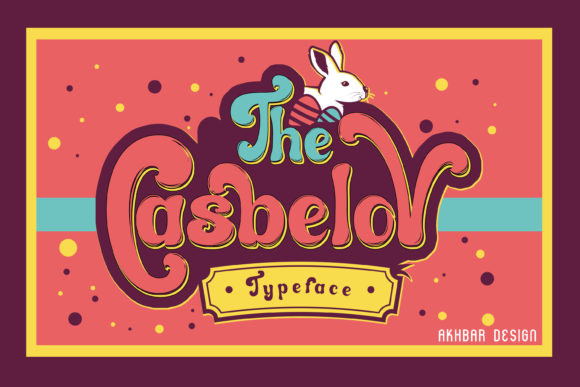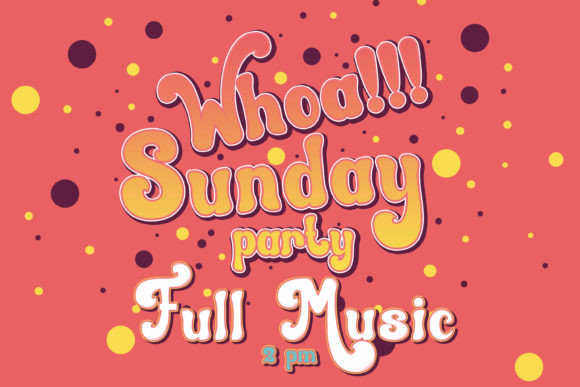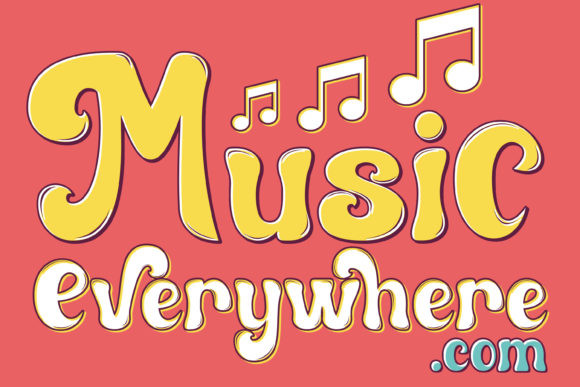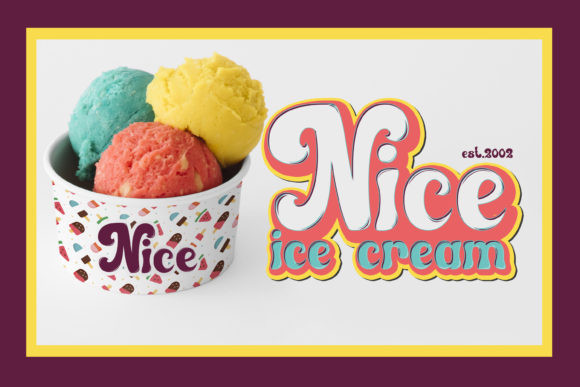
Casbelov Font
With its incredibly cheerful character, Casbelov is the ideal font for circus, carnival or kids party-projects! Ignite your creativity with this adventurous display font!